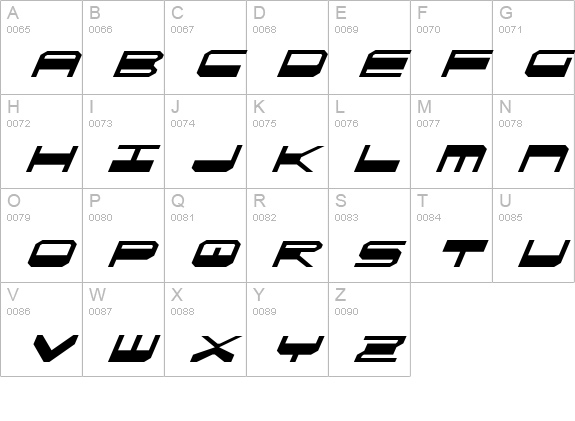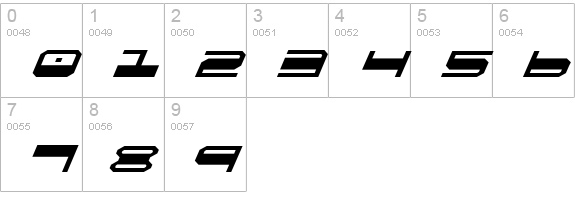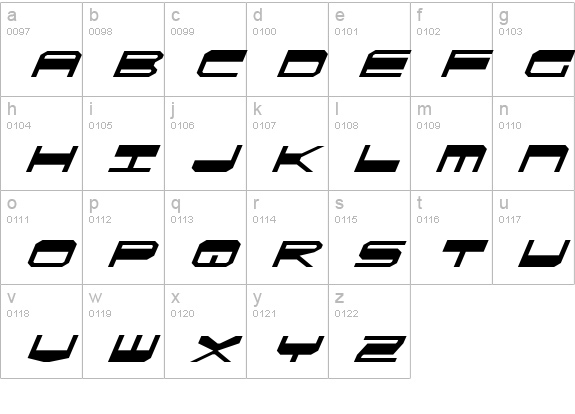
QuickGear Italic is a distinctive, italic variant in the QuickGear typeface family \xE2\x80\x94 well suited to design and typography projects.
Introducing QuickGear Italic, a sleek and stylish font that effortlessly blends elegance with a touch of modernity. This font is perfect for adding a sophisticated edge to any project, be it print or digital. With its slanted and italicized characters, QuickGear Italic exudes a sense of dynamism and energy, making it ideal for conveying messages that demand attention. Whether you're designing a logo, creating a stunning poster, or crafting eye-catching social media graphics, this font will elevate your work to new heights. One of the best aspects of QuickGear Italic is that it is not only visually striking, but also incredibly versatile. It effortlessly adapts to various design styles, seamlessly complementing both bold and delicate aesthetics. Its clean and precise lines ensure legibility, making it suitable for headlines, subheadings, body text, and more. But what sets QuickGear Italic apart from other fonts is its availability for free download at FontsMarket.com. Yes, you read that right – this exceptional font can be yours without spending a dime. FontsMarket.com is a trusted source for high-quality fonts, and they are proud to offer QuickGear Italic as a freely accessible resource for designers, artists, and enthusiasts alike. So, why wait? Unleash your creativity with QuickGear Italic and experience the power of this extraordinary font. Download it now from FontsMarket.com and unlock a world of design possibilities. From professional projects to personal endeavors, QuickGear Italic will be your go-to choice for adding a touch of sophistication and flair.